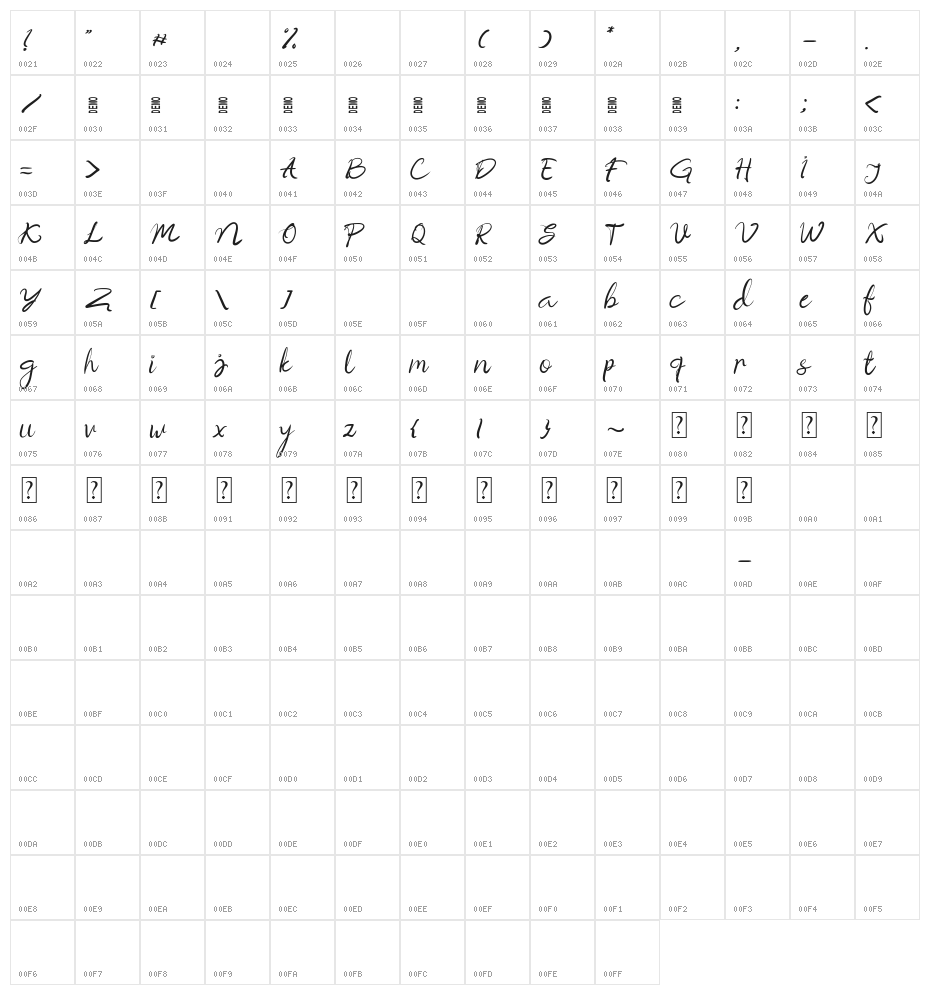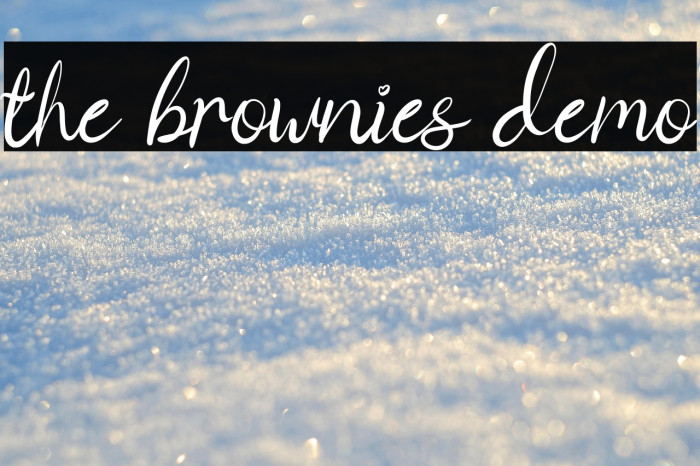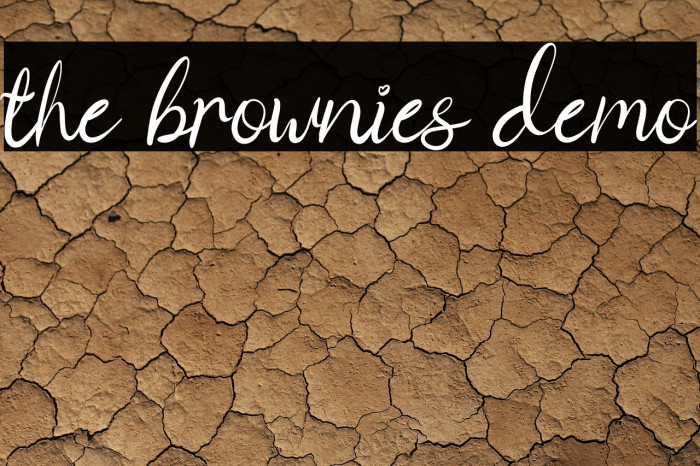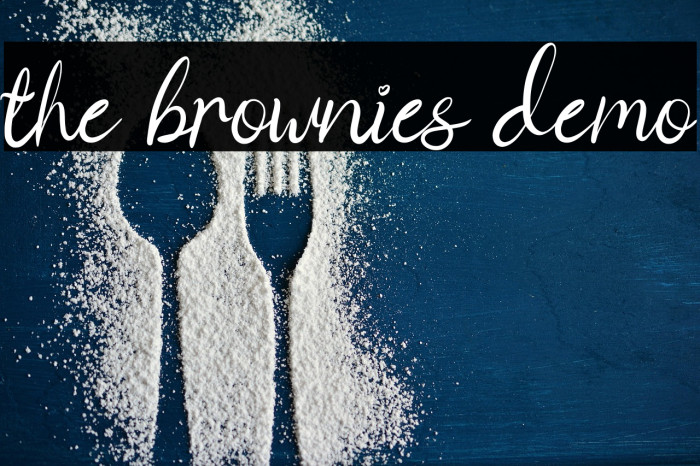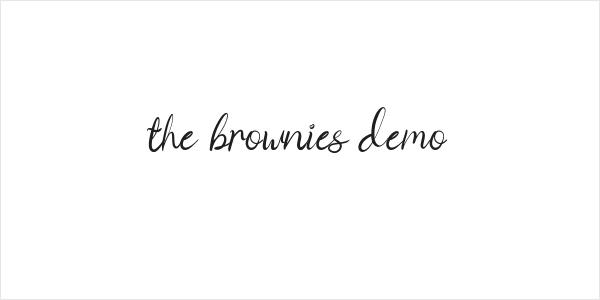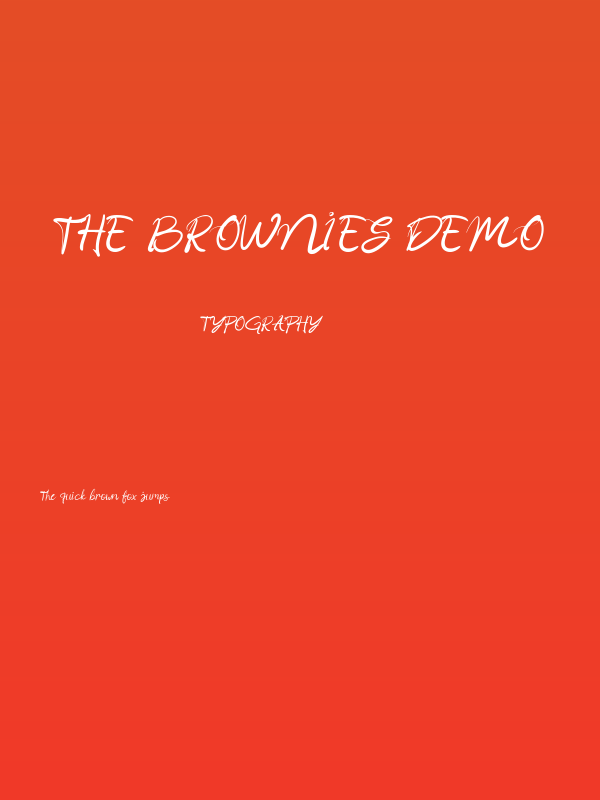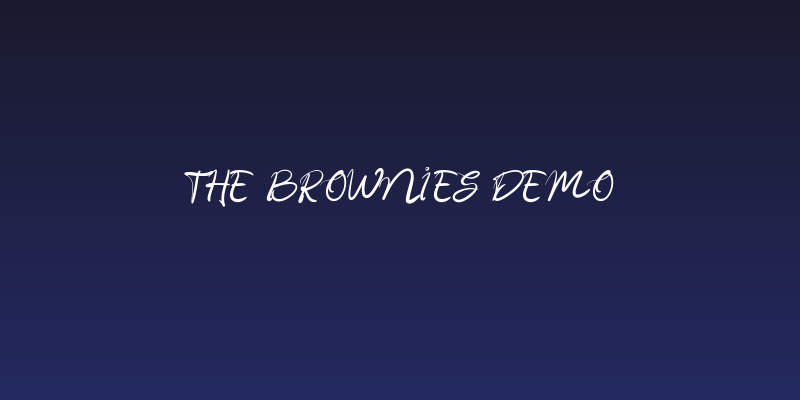
the brownies demo Font
the brownies demo Description
This font features a flowing, cursive style with elegant loops and swashes, giving it a handwritten appearance. The uppercase letters are bold and dynamic, with a slight slant that adds to the fluidity of the design. The lowercase letters maintain a consistent style, with smooth connections between characters that enhance readability. The numerals and special characters are crafted with the same attention to detail, ensuring a cohesive look across all elements. This font exudes a sense of sophistication and creativity, making it suitable for a variety of design projects.
Use CaseLogos, Invitations, Artistic projects
Proposed ProjectsIdeal for wedding invitations, greeting cards, branding, and artistic projects.